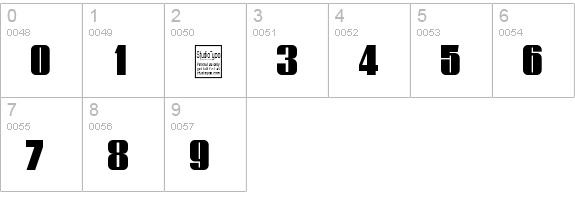
Typoline Font Details
Introducing Typoline, a beautifully crafted font that effortlessly blends elegance with modernity. With its sleek and sophisticated letterforms, Typoline is the perfect choice for any design project that requires a touch of refinement. This versatile font offers a wide range of styles, making it suitable for a variety of applications, from branding and logo design to editorial layouts and website typography. Its clean and legible characters ensure readability across different mediums, ensuring that your message is conveyed with clarity and impact. But what sets Typoline apart is not just its stunning design - it's also completely free. That's right, you can now enjoy the beauty and versatility of Typoline without spending a dime. Simply head over to FontsMarket.com, where Typoline is freely available for download. Whether you're a professional designer or a creative enthusiast, Typoline will undoubtedly become an invaluable addition to your font library. Its timeless appeal and effortless elegance will elevate your designs to new heights, leaving a lasting impression on your audience. So why wait? Embrace the beauty of Typoline and let your creativity soar. Download this exceptional font for free today at FontsMarket.com and unlock endless possibilities for your design projects.